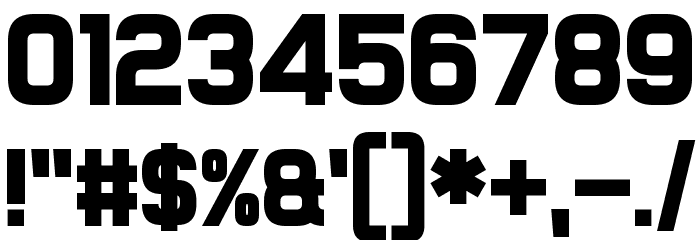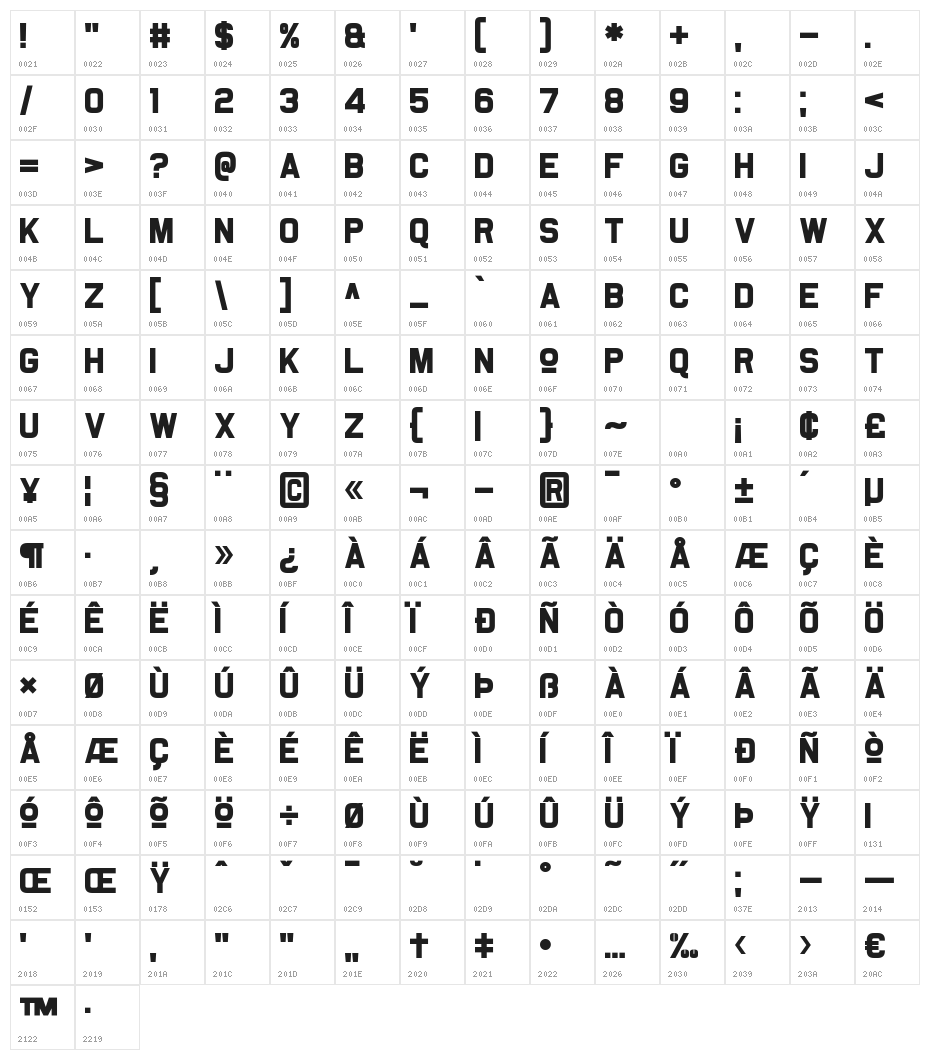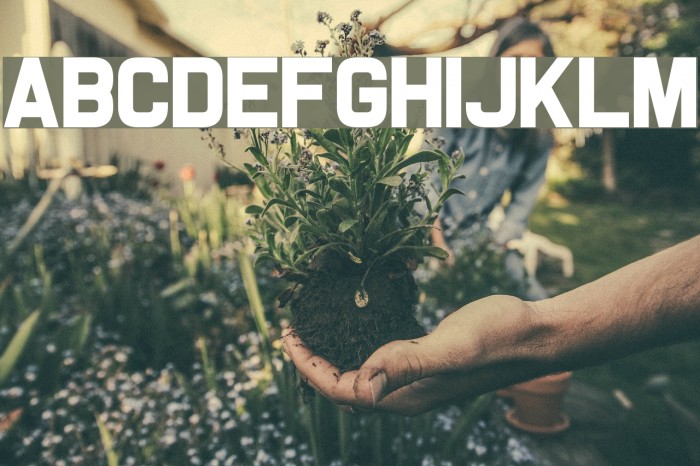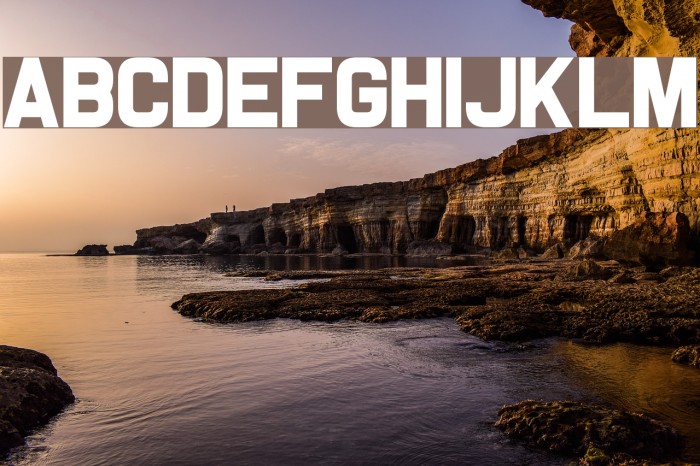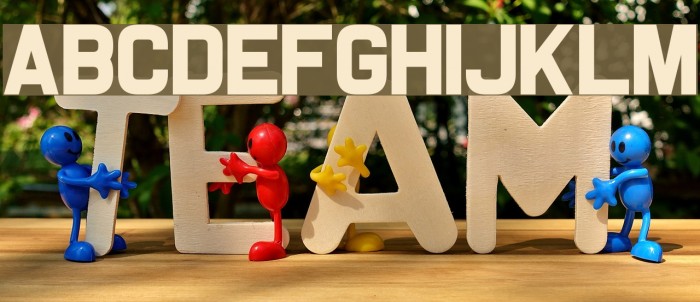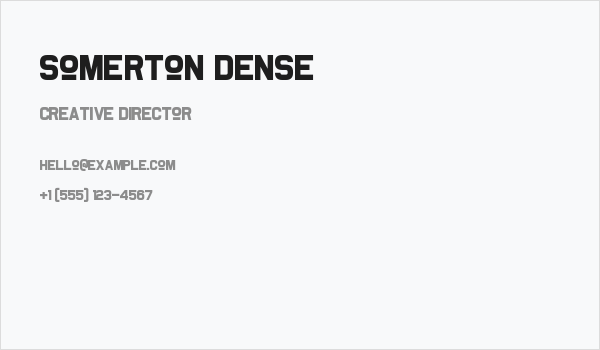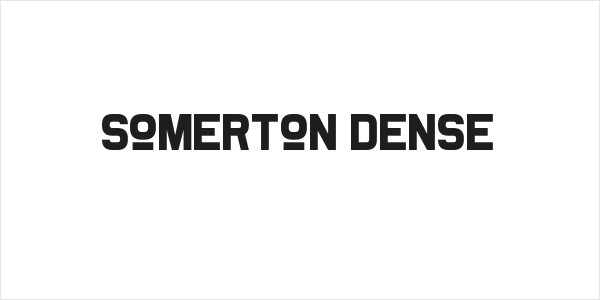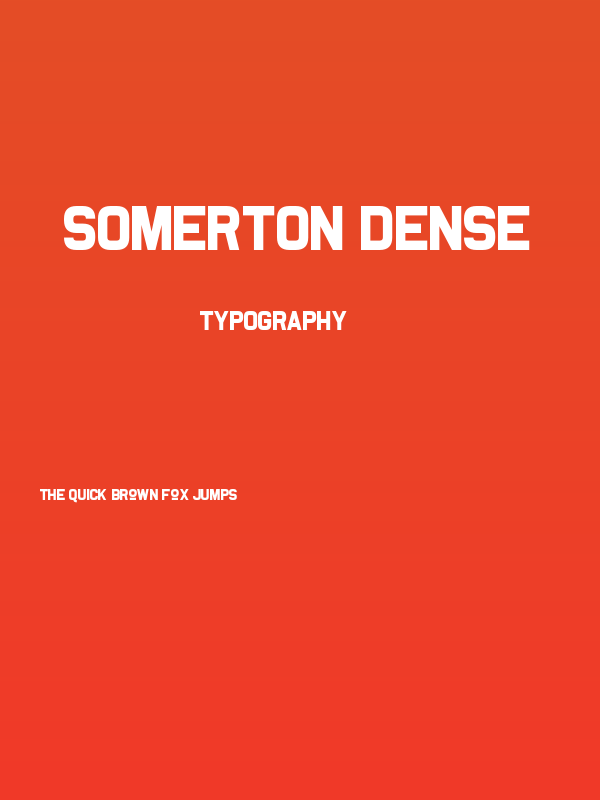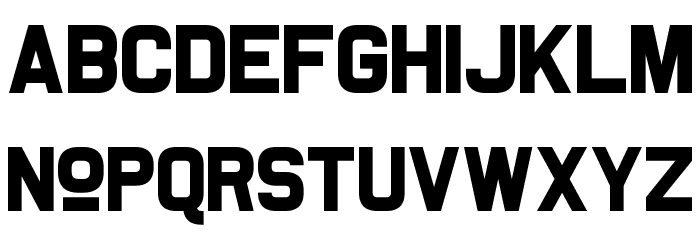
Somerton Dense Font
This font features a bold and impactful design with strong geometric shapes and a modern aesthetic. The characters are uniformly wide, creating a sense of stability and strength. The uppercase letters are particularly striking, with a consistent height and width that enhances readability. The numbers and special characters maintain the same boldness, ensuring they stand out in any context. This font is ideal for making a statement, with its clear and assertive presence.